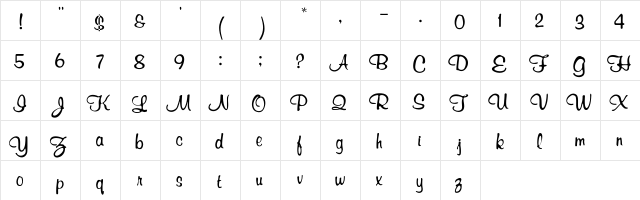
ThomassMurrayay Regular
Design Context for ThomassMurrayay Typeface
ThomassMurrayay is a composed and adaptable typeface that performs quietly and consistently across a wide range of design contexts.
Pro Tip: Use ThomassMurrayay in both headline and body roles to test its range before committing to a single application.